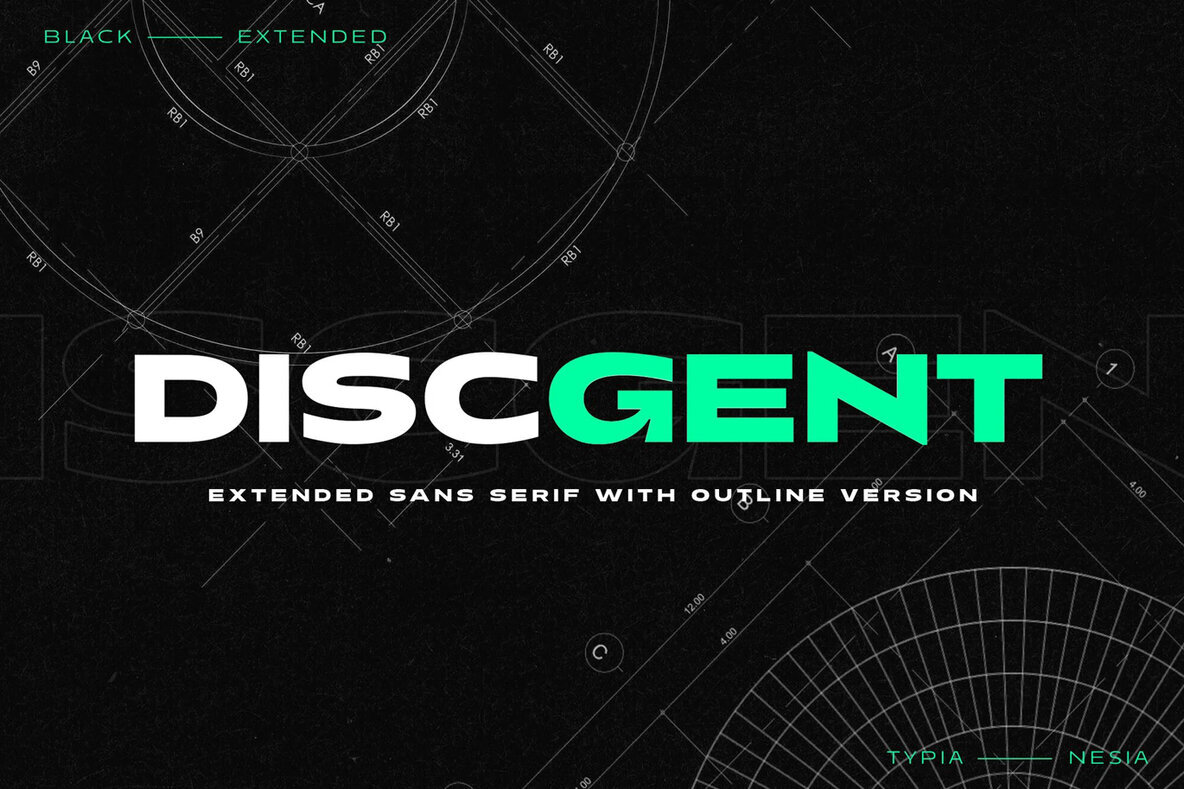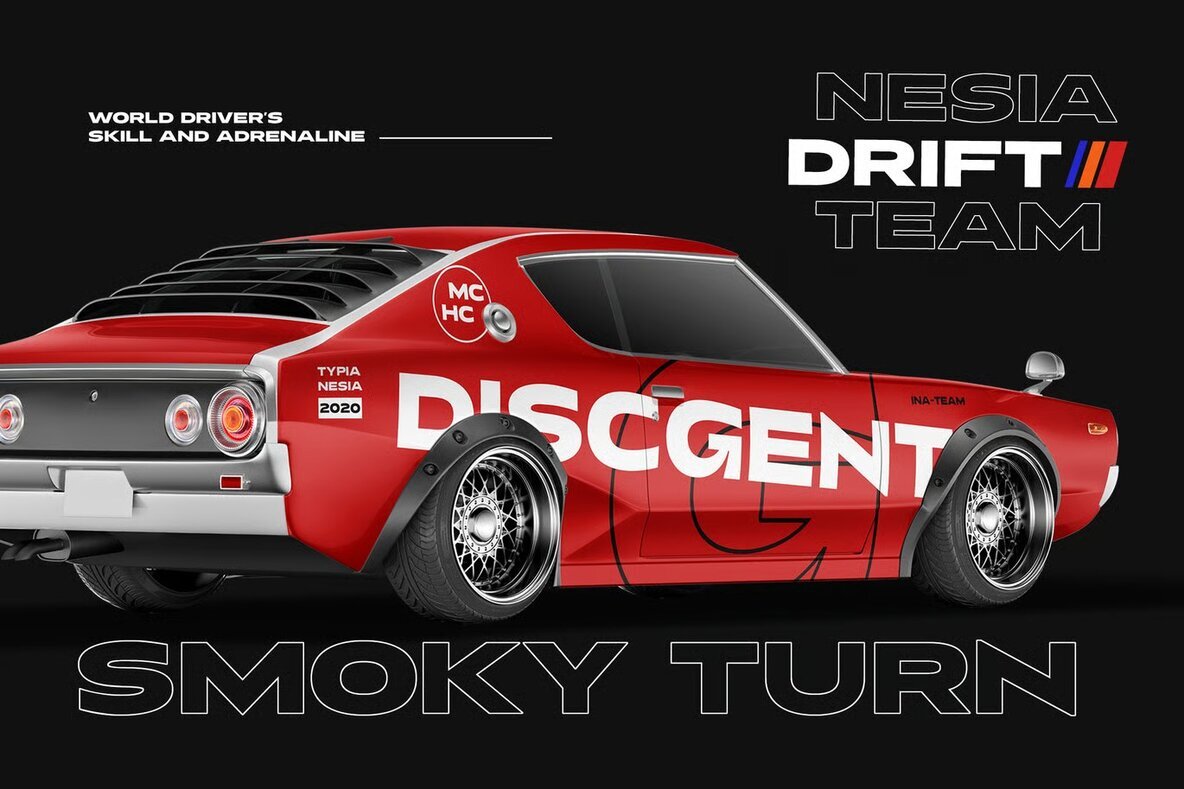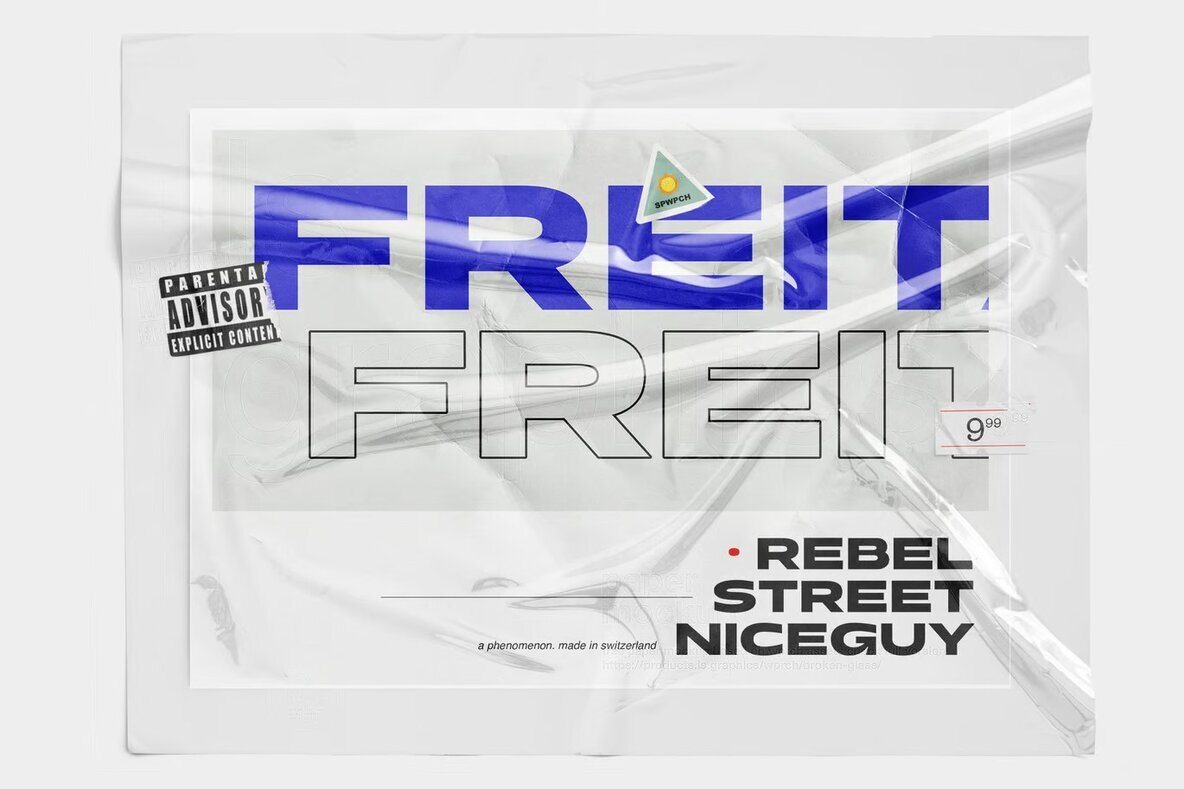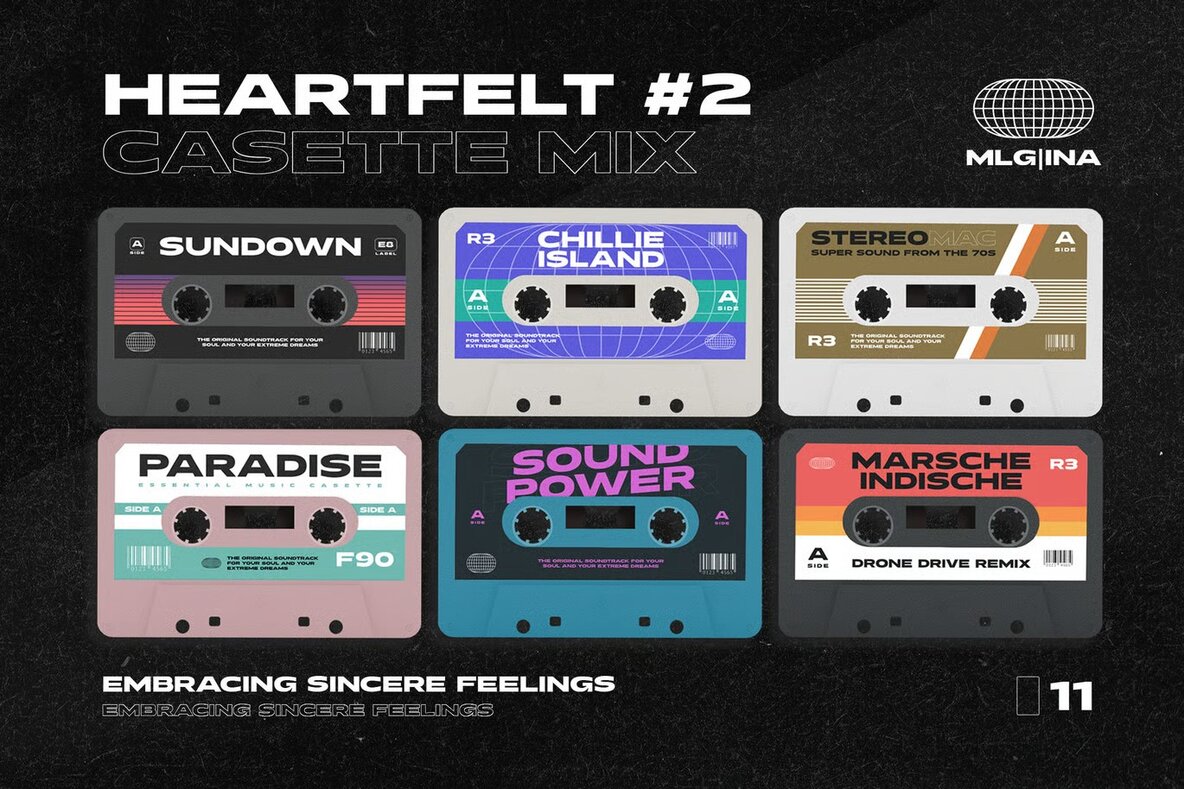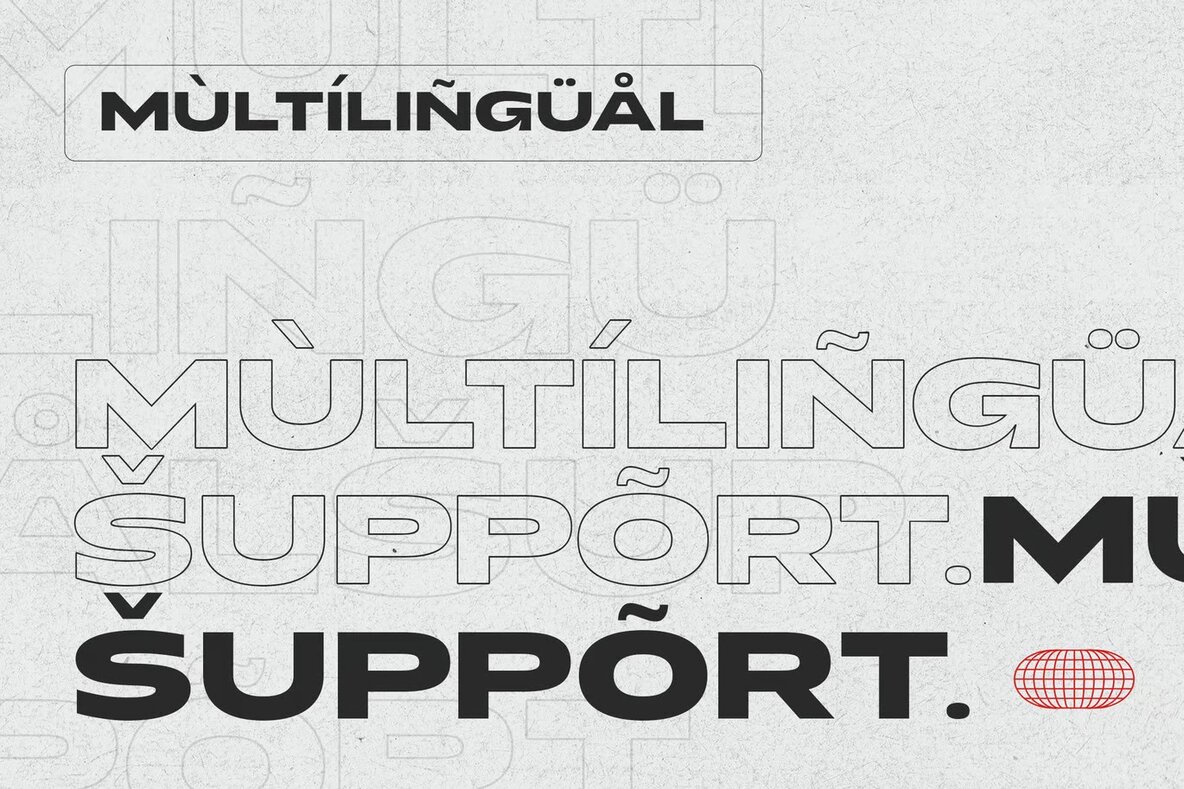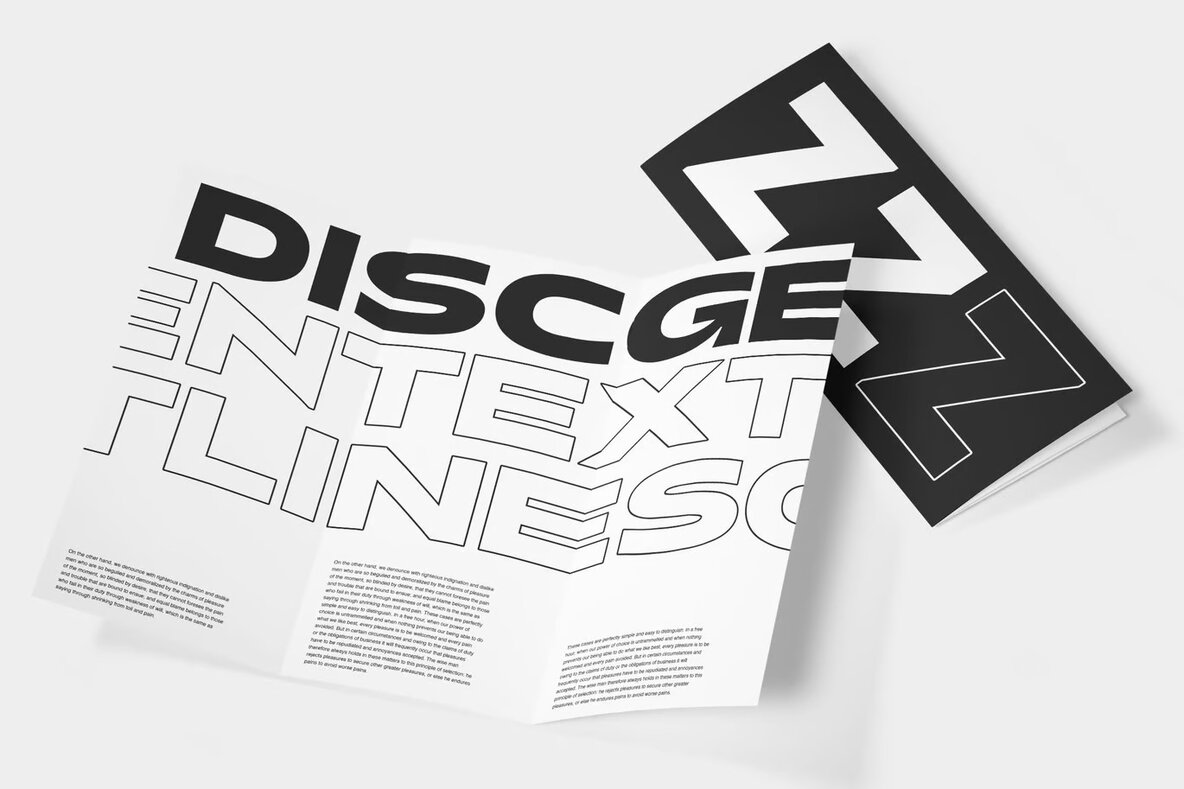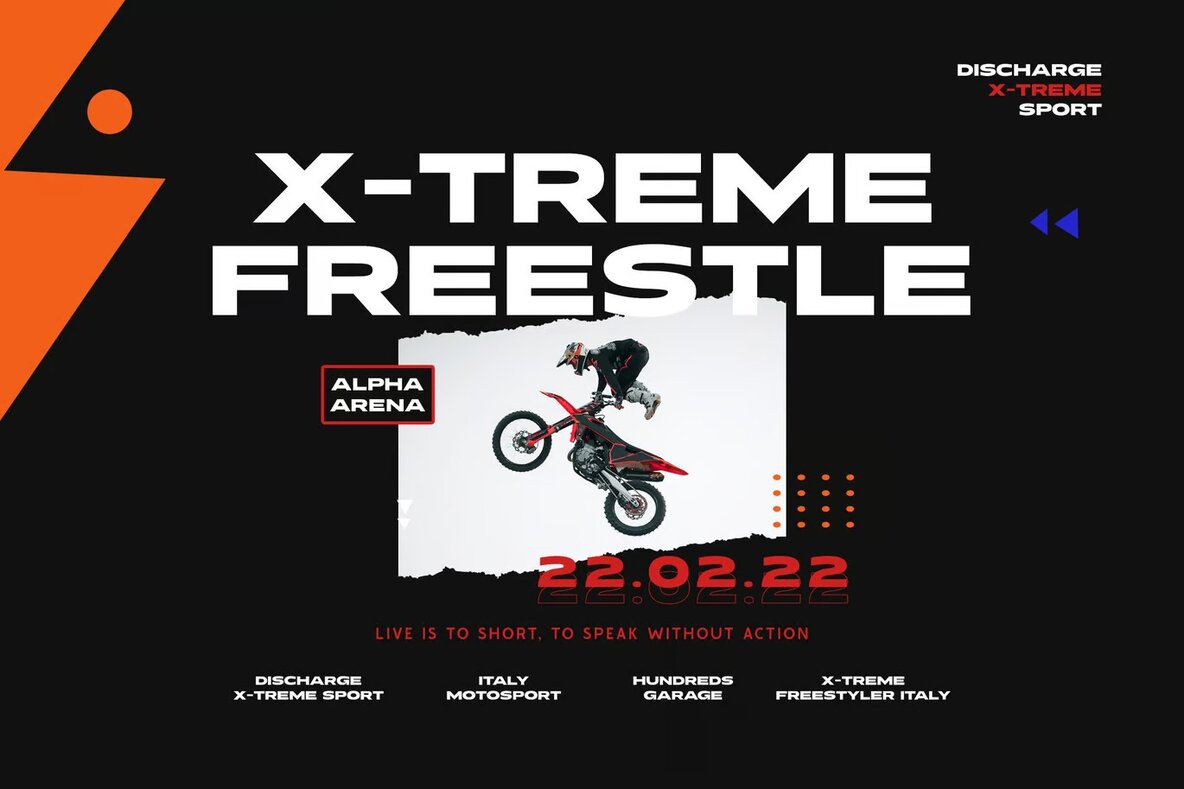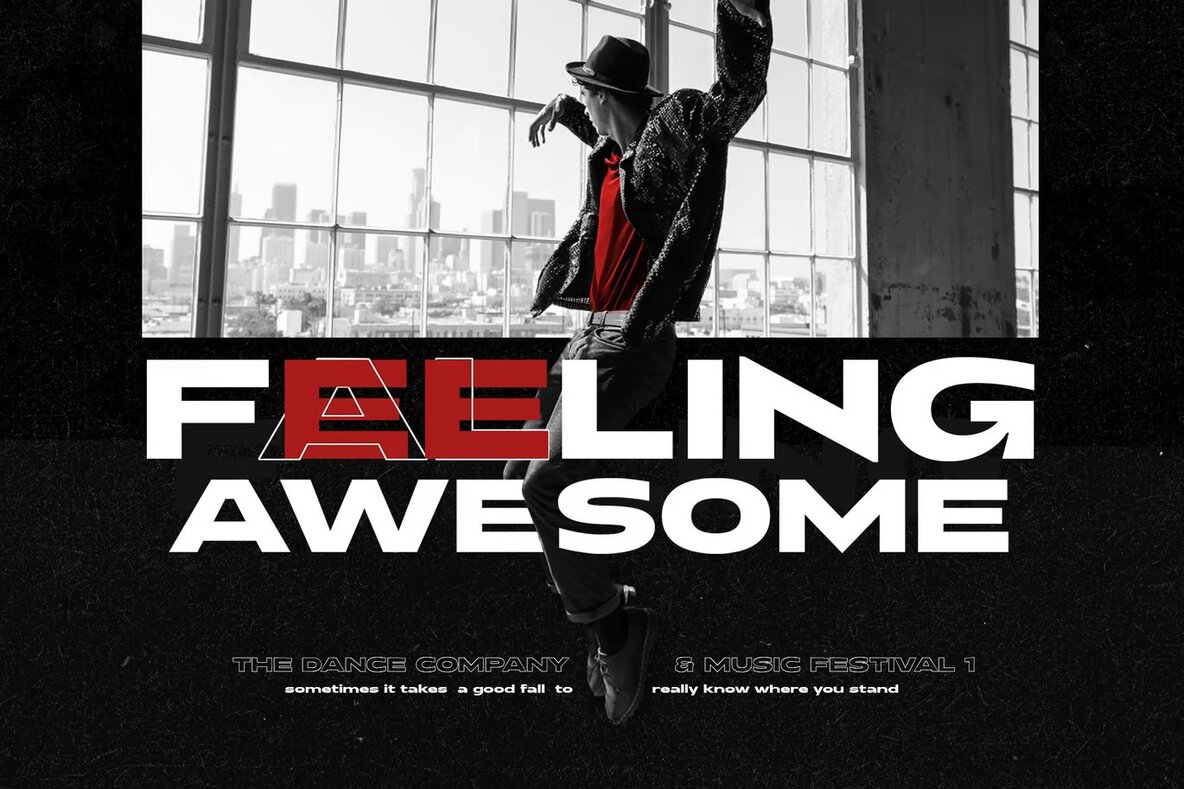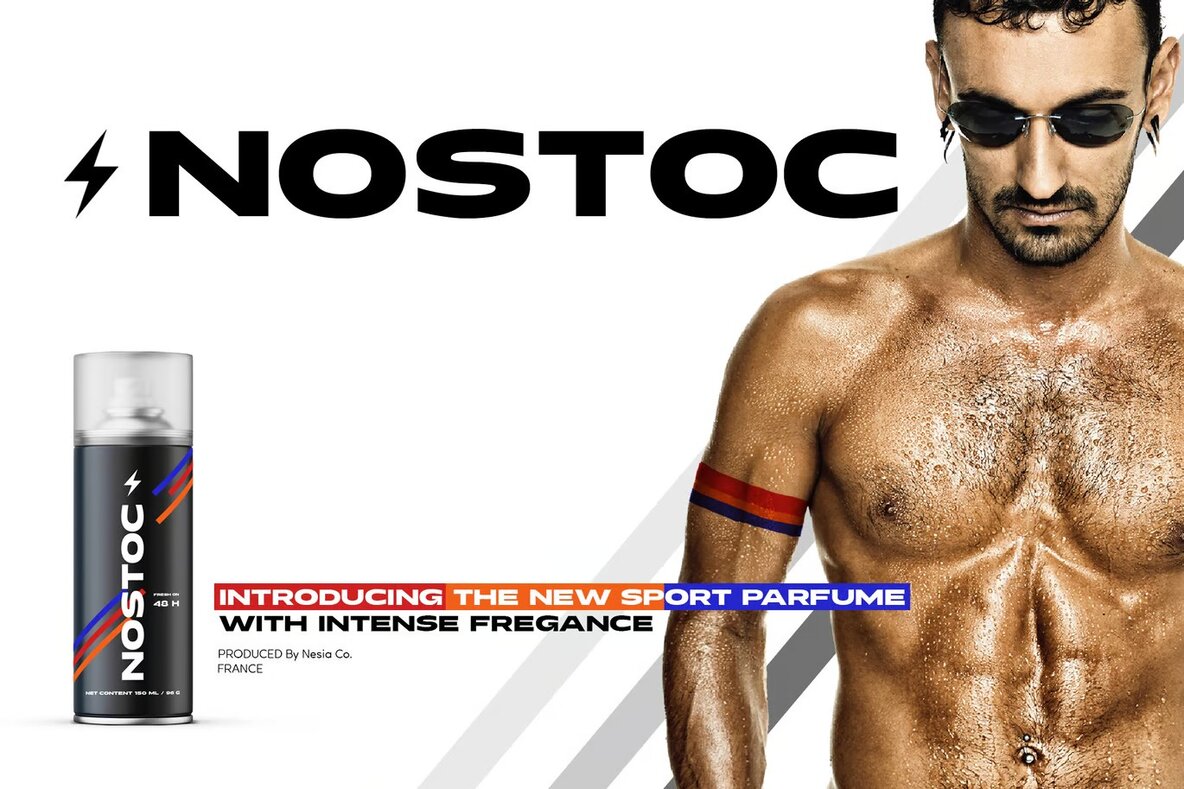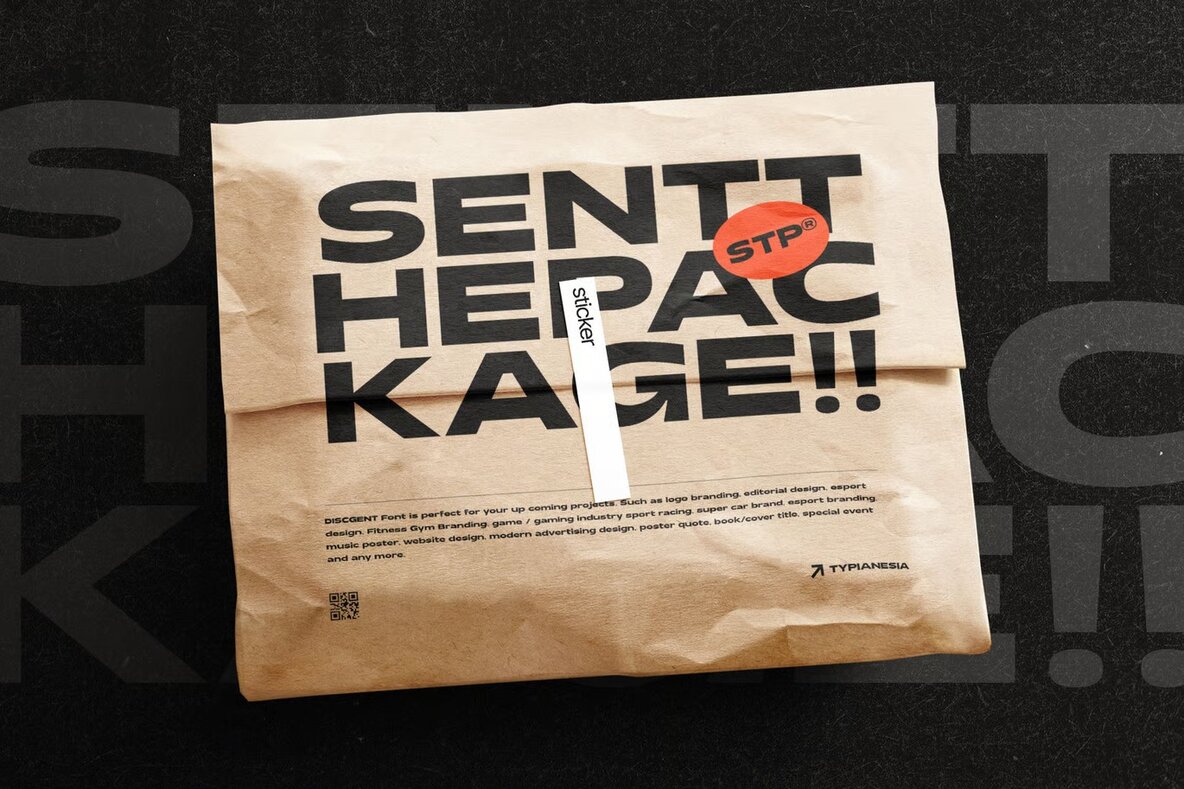
Discgent Font
Discgent Regular
Discgent Outline
Discgent Bold Sans Serif Display Font is an ideal choice for a variety of creative projects. With its modern black and bold expanded design, it adds a striking visual impact to logo branding, editorial design, and sports-related graphics. Its robust and clean lines make it perfect for the gaming industry, music covers, posters, and technology website designs. Whether you are working on a modern advertising campaign or crafting a memorable book cover title, Discgent ensures your design stands out.
This versatile font adapts seamlessly to various applications, including special events and modern poster quotes. Its boldness and clarity ensure readability across all mediums, making your message clear and prominent. Discgent's sleek and contemporary aesthetic enhances any project, offering a professional yet dynamic look that captivates the audience.